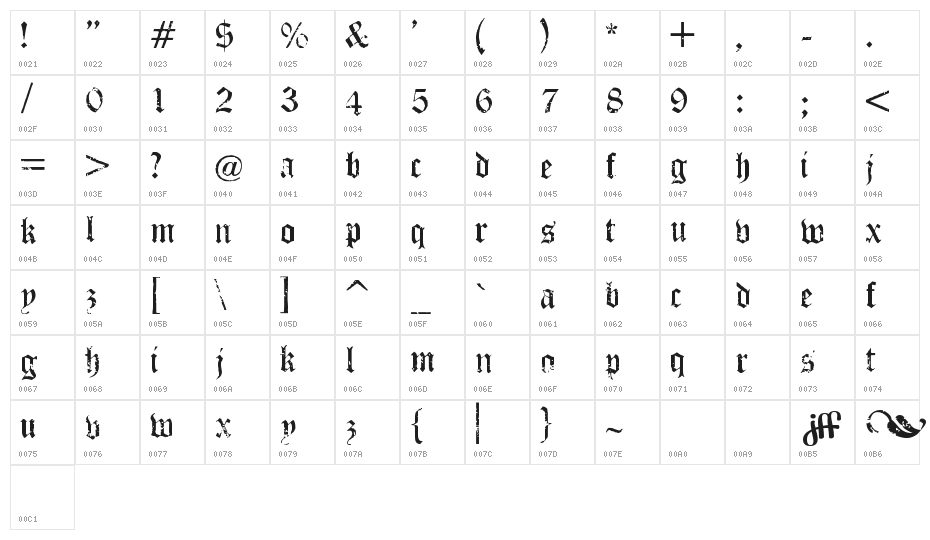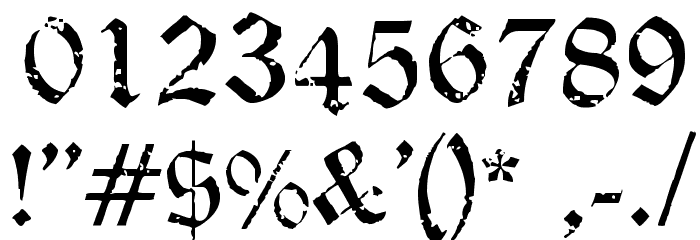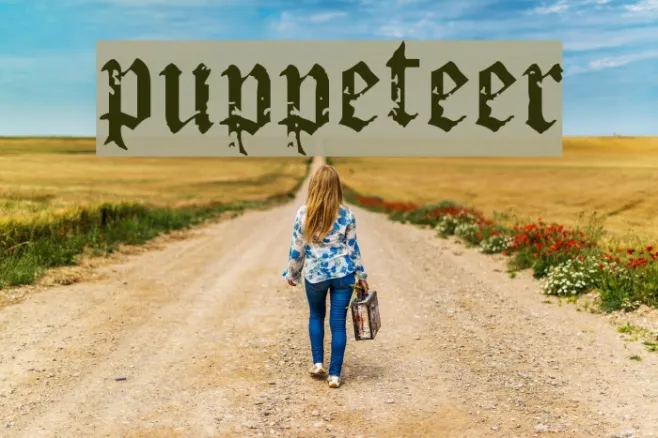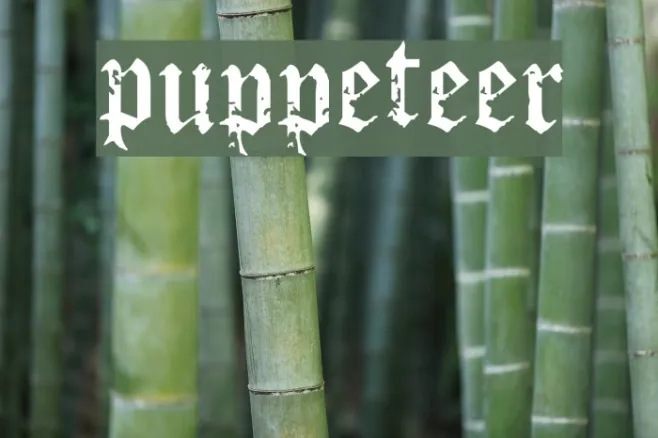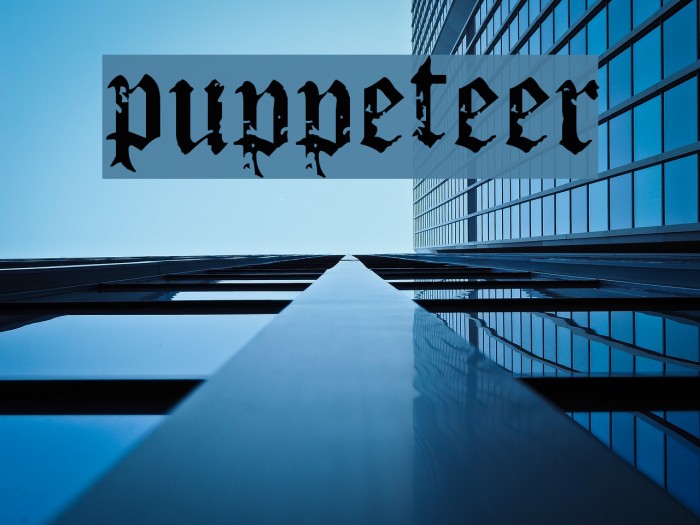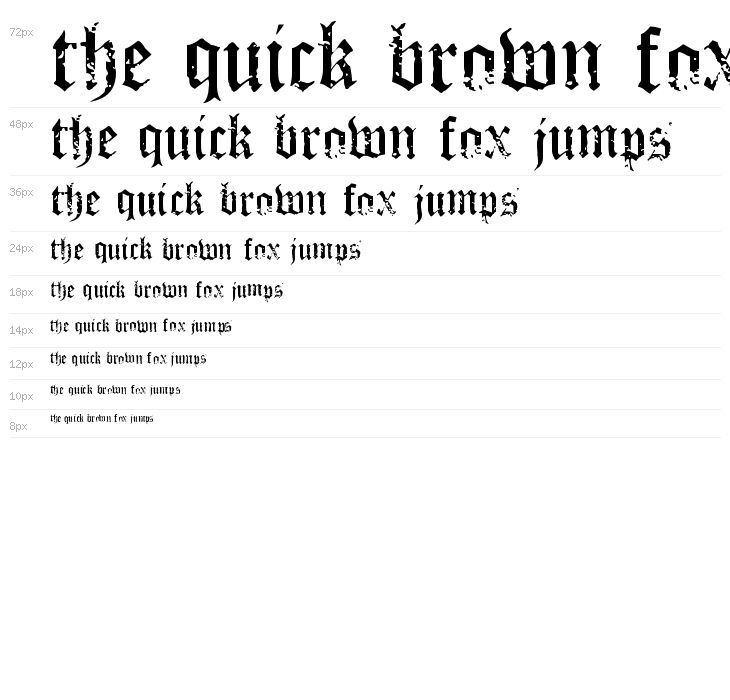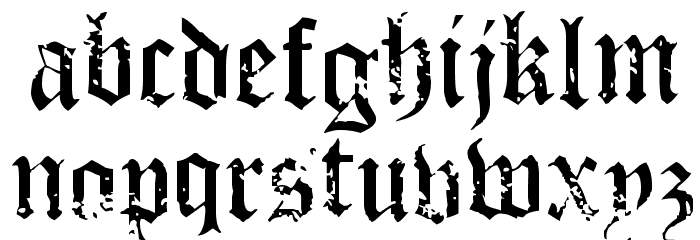
Puppeteer Font
Puppeteer Description
This font features a distressed, gothic style with a textured appearance that mimics the look of aged, worn-out print. The characters are bold and have a traditional blackletter form, characterized by sharp angles and dramatic strokes. The uppercase and lowercase letters maintain a consistent style, with intricate detailing that adds to the vintage aesthetic. Numbers and special characters are equally stylized, making them suitable for thematic designs. The overall look is reminiscent of medieval script, offering a sense of history and drama.
| Use Case | Headlines, Logos, Decorative text |
| Proposed Projects | Ideal for projects that require a historical or dramatic flair, such as event posters, book covers, or themed branding. |